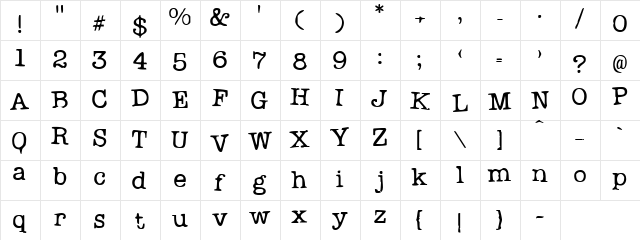
Problem Secretary Problem Secretary
Design Context for Problem Secretary Typeface
Problem Secretary takes a measured approach to typography — its balanced proportions and neutral character make it a reliable workhorse for both digital and print work.
Pro Tip: Pair Problem Secretary with a font of contrasting weight or personality to build a more expressive typographic hierarchy.